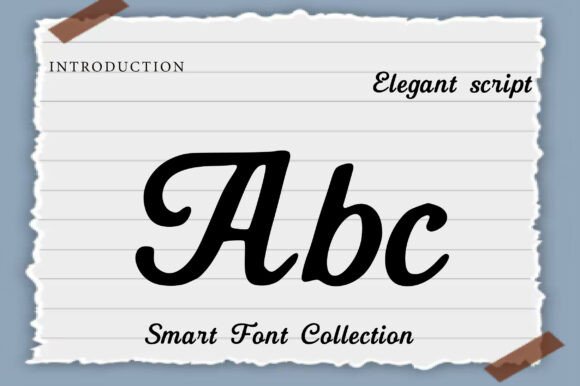
Introduction to Elegant Script Font
Have you ever found yourself scrolling through social media, only to pause at a beautifully crafted post that catches your eye? The elegant script font used in that post is more than just a design element – it’s a conversation starter. It’s a reflection of the brand’s personality and style, and it can make all the difference in capturing your audience’s attention.
As a designer, you know the value of using high-quality fonts in your creative projects. The right font can elevate your design, make it more readable, and even evoke emotions. That’s why we’re excited to introduce you to the Elegant Script Font – a smooth, stylish script font that’s perfect for adding a touch of elegance to your designs.
This elegant script font is a game-changer for designers looking for a premium design resource. With its clean strokes, soft curves, and balanced letterforms, it’s ideal for a wide range of applications, from wedding invitations and branding to photography watermarks and beauty labels. And the best part? It’s available for free download, making it a valuable addition to your design arsenal.
Key Features of Elegant Script Font
- Elegant Script Font is a high-quality design resource ideal for creative projects requiring a touch of elegance and sophistication.
- This beautiful font features a transparent background, making it easy to overlay on any image or design without any distractions.
- Elegant Script Font is available in a single size, making it easy to use across various design projects.
- The font features a resolution of 300 DPI, ensuring that it looks crisp and clear even when scaled up or down.
- What sets Elegant Script Font apart is its unique, handwritten style that adds a personal touch to any creative project.
Honest Review: Elegant Script Font
After installing the font, I was impressed by its high quality. The Elegant Script Font features beautiful, flowing lines that evoke a sense of sophistication and refinement. It’s perfect for projects that require a touch of luxury and whimsy.
Here are some of the things that I think work well with the Elegant Script Font:
- ✨ Unique and elegant letterforms that add a touch of sophistication to any design
- ✨ Transparent background, making it easy to layer over other design elements
- ⚠️ Limited character set, which may be a problem for more extensive creative projects
- ⚠️ May not be suitable for designs that require a more rugged or bold aesthetic
Overall, I’m impressed with the Elegant Script Font. It’s a high-quality design resource that’s perfect for adding a touch of elegance to your creative projects. With its unique letterforms and transparent background, it’s a great addition to any designer’s toolkit.
To get the most out of the Elegant Script Font, try combining it with a transparent background to create a beautiful, high-quality design. You can also experiment with different font sizes and styles to add visual interest to your project.
The Elegant Script Font is perfect for wedding invitations, birthday cards, and other creative projects where a touch of elegance is needed. You can also use it to add a personal touch to your business cards or marketing materials.